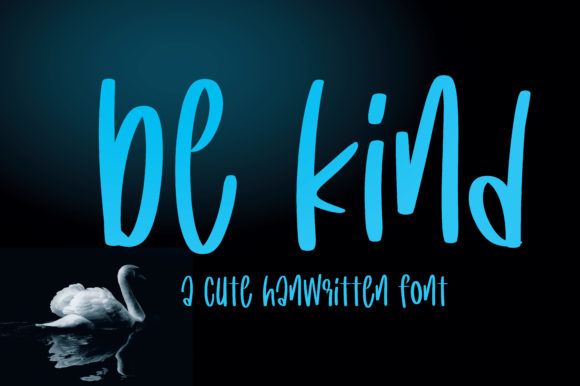
Behold Be Kind, an exquisite handwritten font brimming with cheer and affability, ready to elevate your creative endeavors to dizzying heights. Its meticulously crafted characters, reminiscent of the gentle stroke of a quill dipped in starlight, will lend an irresistible charm to your projects, leaving an indelible mark on the hearts of your audience.
Adorned with elegant curves and adorned with playful flourishes, Be Kind embodies the essence of handwritten artistry. Each letter dances across the page, evoking the warmth of a cherished note penned by a dear friend. Its whimsical nature adds a touch of whimsy to your designs, transforming them into captivating expressions of joy and heartfelt connection.
With Be Kind as your creative companion, you'll find endless opportunities to weave your message with panache and flair. Craft captivating branding that exudes a unique personality, design headings that dance with grace and eloquence, and create wedding invitations that shimmer with romance and elegance. Let Be Kind be your guiding hand as you craft logos that leave a lasting impression, labels that whisper sophistication, and signatures that carry the weight of your creative spirit.
Whether you're a seasoned designer looking to add a touch of warmth to your work or a budding artist seeking a font that captures the essence of handwritten charm, Be Kind is your perfect match. Its versatility knows no bounds, adapting seamlessly to a kaleidoscope of creative projects.
But beware, once you experience the magic of Be Kind, you'll find yourself reaching for it time and time again. Its captivating allure will weave its way into your creative process, inspiring a symphony of stunning designs that captivate and enchant. Embrace the beauty of Be Kind, and embark on a creative journey that will leave you breathless.